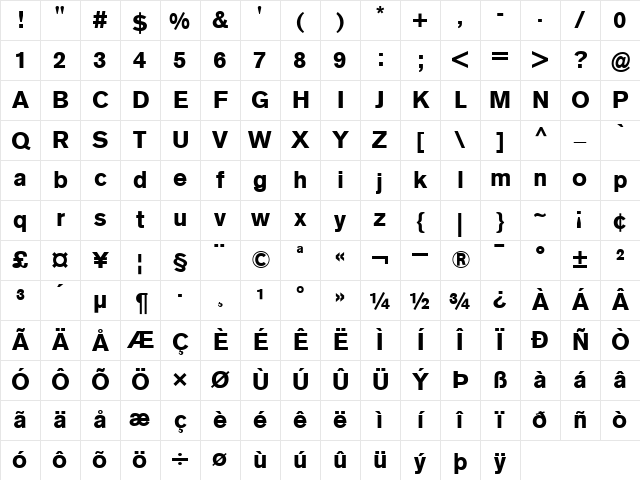
Berthold Akzidenz Grotesk BE Regular
Berthold Akzidenz Grotesk BE Family
Complete Berthold Akzidenz Grotesk BE Regular glyph index. Displaying only characters natively supported by Berthold Akzidenz Grotesk BE Regular font.
Design Context for Berthold Akzidenz Grotesk BE
Berthold Akzidenz Grotesk BE takes a clean, functional approach - its unadorned letterforms prioritise legibility and work reliably across screen and print environments.
Font Pairing: Works well alongside a characterful serif or display font that can carry the expressive load while Berthold Akzidenz Grotesk BE handles the functional copy.
Pro Tip: Use Berthold Akzidenz Grotesk BE for UI labels, navigation, and short-form body copy where clean legibility is the priority.